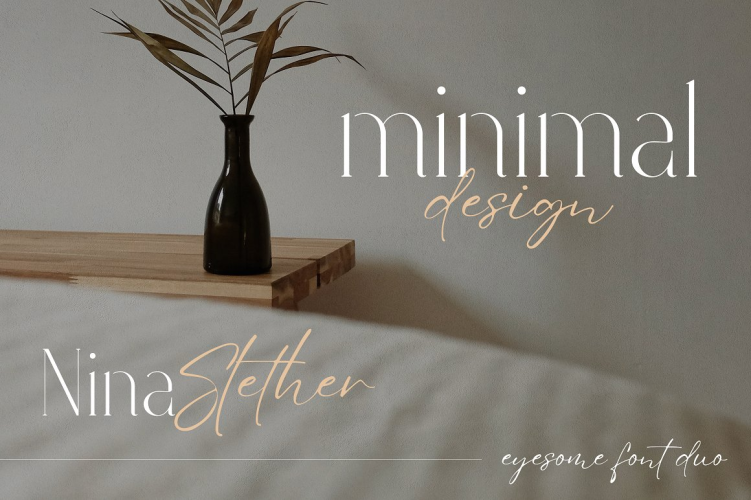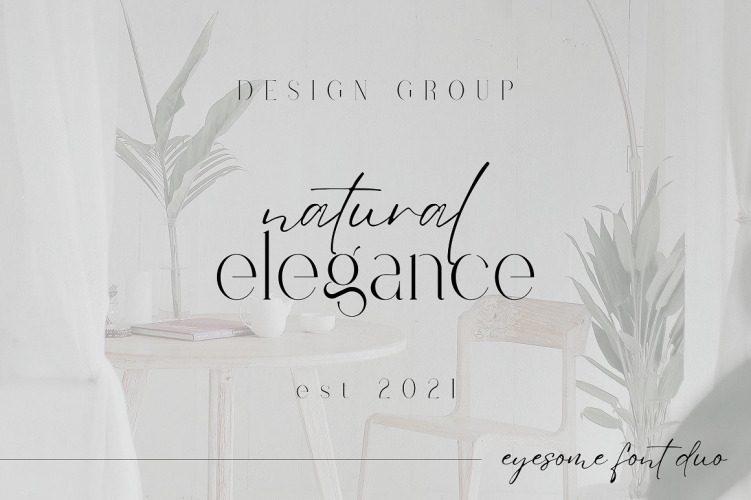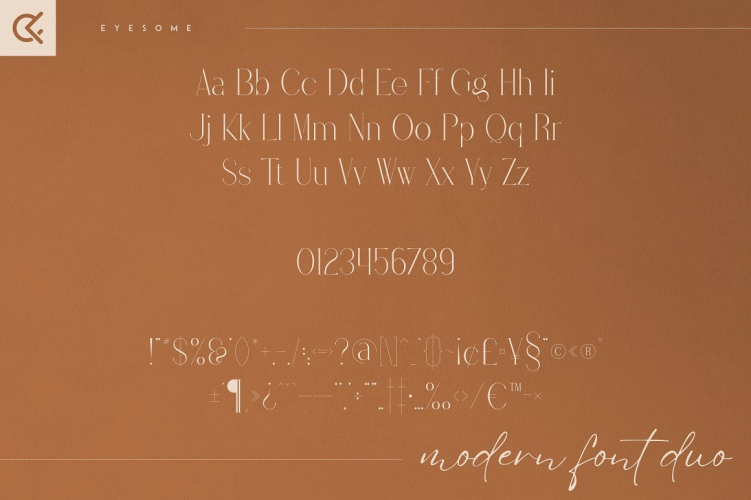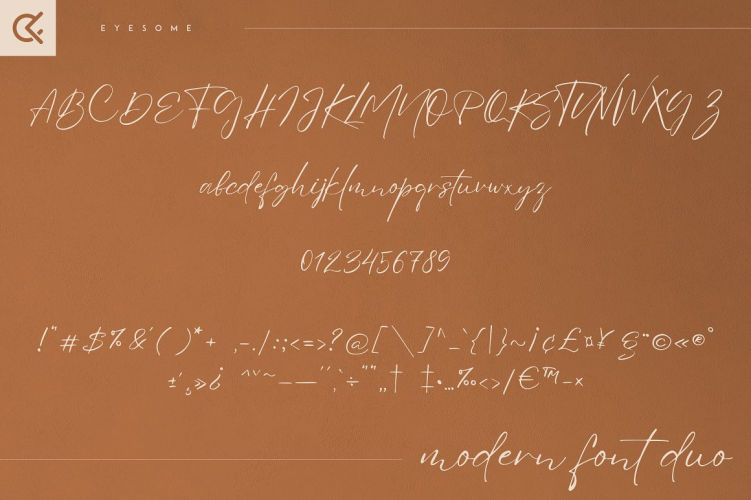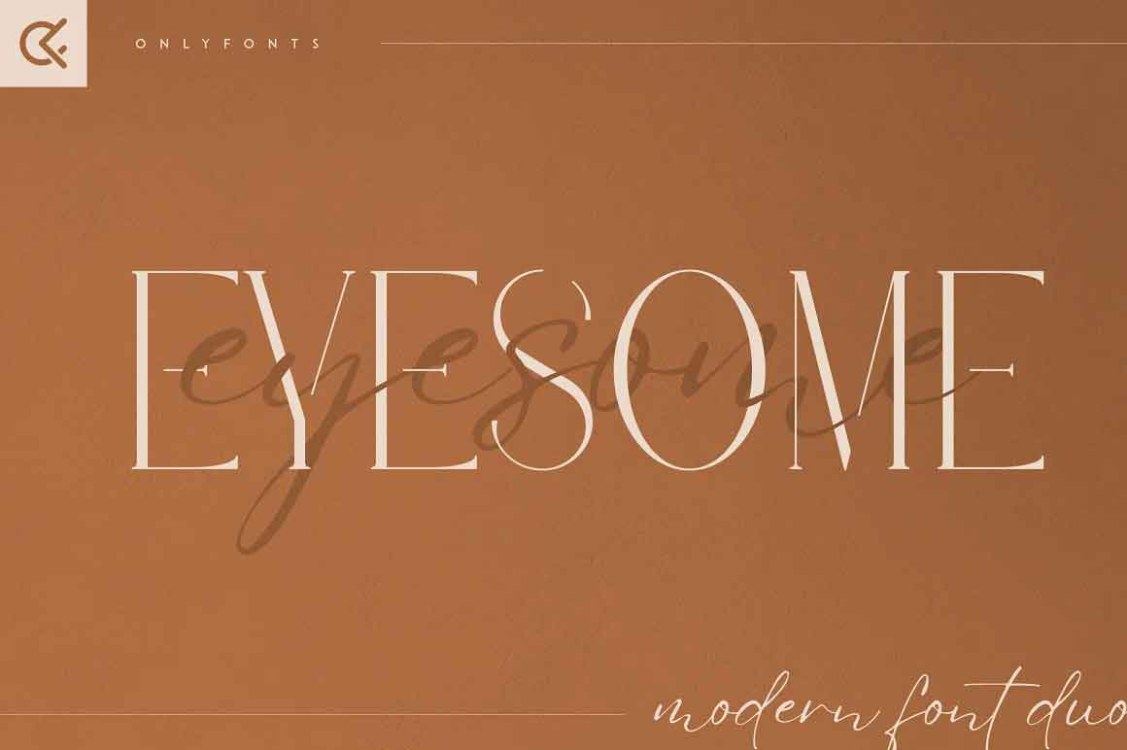
Eyesome Font
Eyesome is an elegant and organic font that adds a classy touch to any project. Thanks to its powerful, clean and elegant shapes, the typeface is equally suitable for different domains and could fit into various design projects. It is equally effective for use in large scale designs or in designing small detailed areas of a much larger design.
Multilingual Support: The design of Eyesome is multilingual, which means that you can use it for the branding and communication processes in different countries.
Versatility: It is superb for both large and small sizes which is why it is suitable for headings, as well as for the text.
Elegant Aesthetics: Its sleek look makes it suitable for use with other minimalistic and contemporary styles and gives it a stylish as well as a practical appeal.
Branding: Due to the font’s simplicity, it is perfect for designing logo and brand that would leave a long-lasting impression in the minds of the consumers.
Homeware Designs: It gives an aesthetic, and at the same time, a rather home-made impression to the product labels and packaging.
Product Packaging: This makes Eyesome flexible to suit any packaging of products be it cosmetics or other luxurious items.
Magazine Headers: Eyesome has a very sophisticated look for the title or heading of the page, yet it is very easy to read.
Stylish Text Overlays: To place text over images to give an elegant look to social media posts, website headers, or articles, this is an excellent choice.
If you are in search of a typeface that can provide professional look and on the other hand convey natural feeling then Eyesome is your best bet. This makes it suitable for international businesses since it offers support for many languages; its modern look also makes it suitable for any creative endeavor.
Be it logo design, product packaging or anything in between, Eyesome is the perfect font for the designer that wants a great looking and functional font.
Eyesome Font gives long-form text a classic, trustworthy rhythm — ideal for magazine spreads, annual reports and book interiors.
Pair Eyesome Font with generous letter-spacing for wordmarks in fashion, hospitality, wine and jewellery branding.
Use Eyesome Font for slide titles in Keynote, PowerPoint or Google Slides to add authority without looking dated.